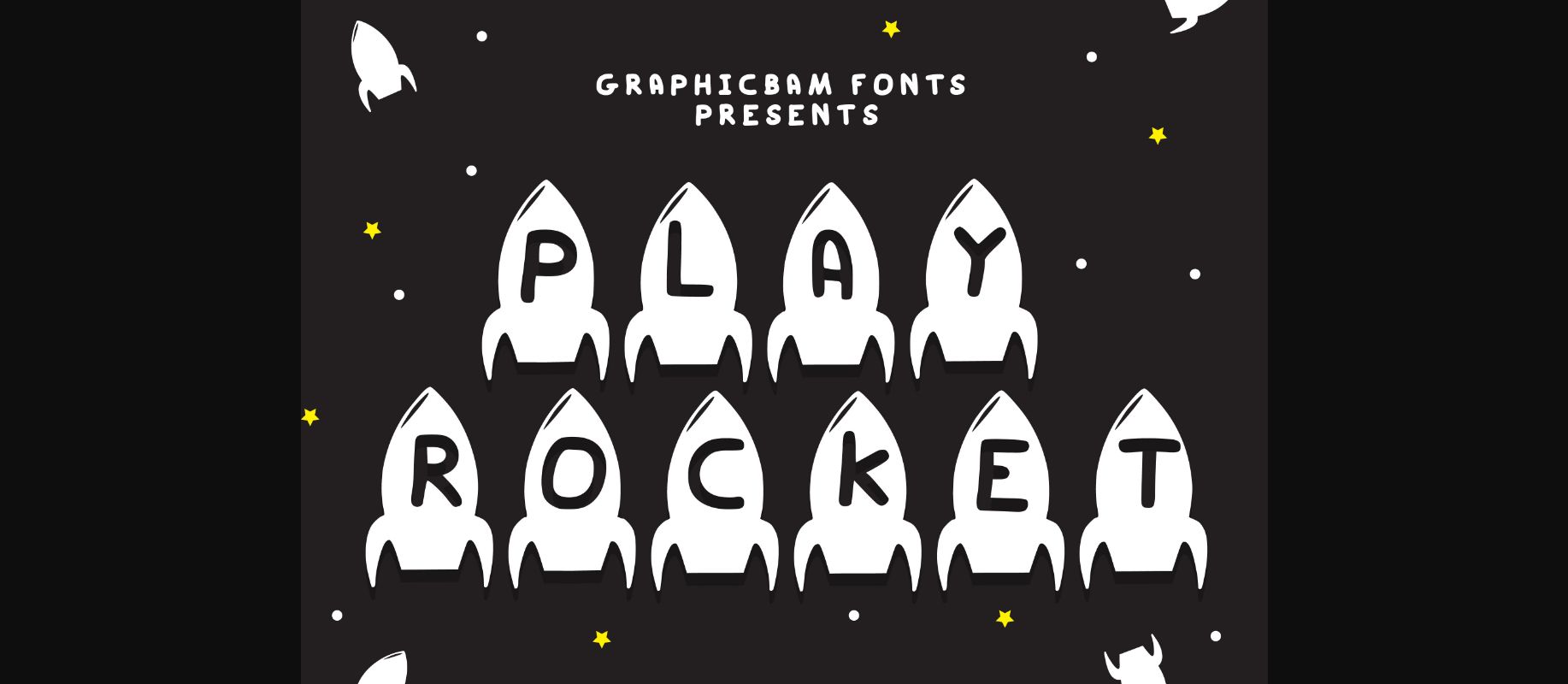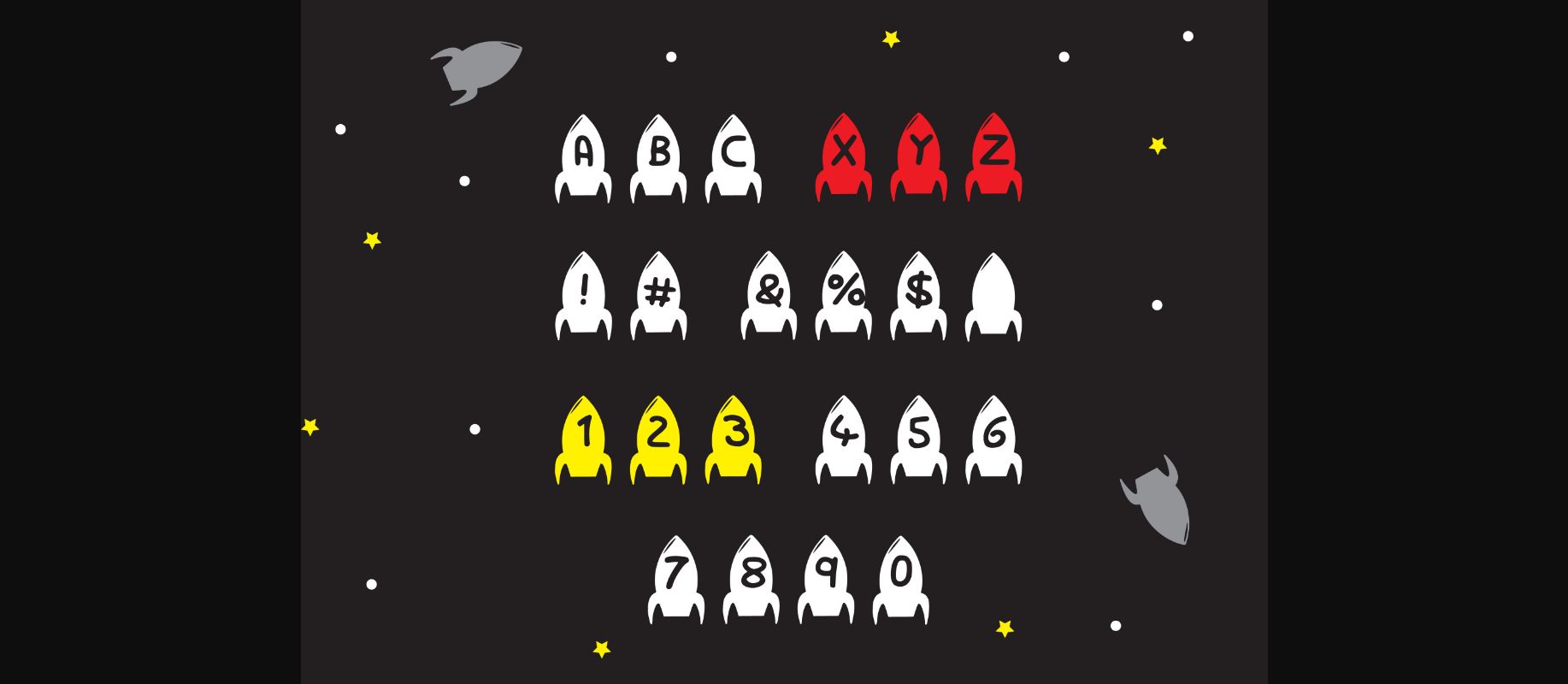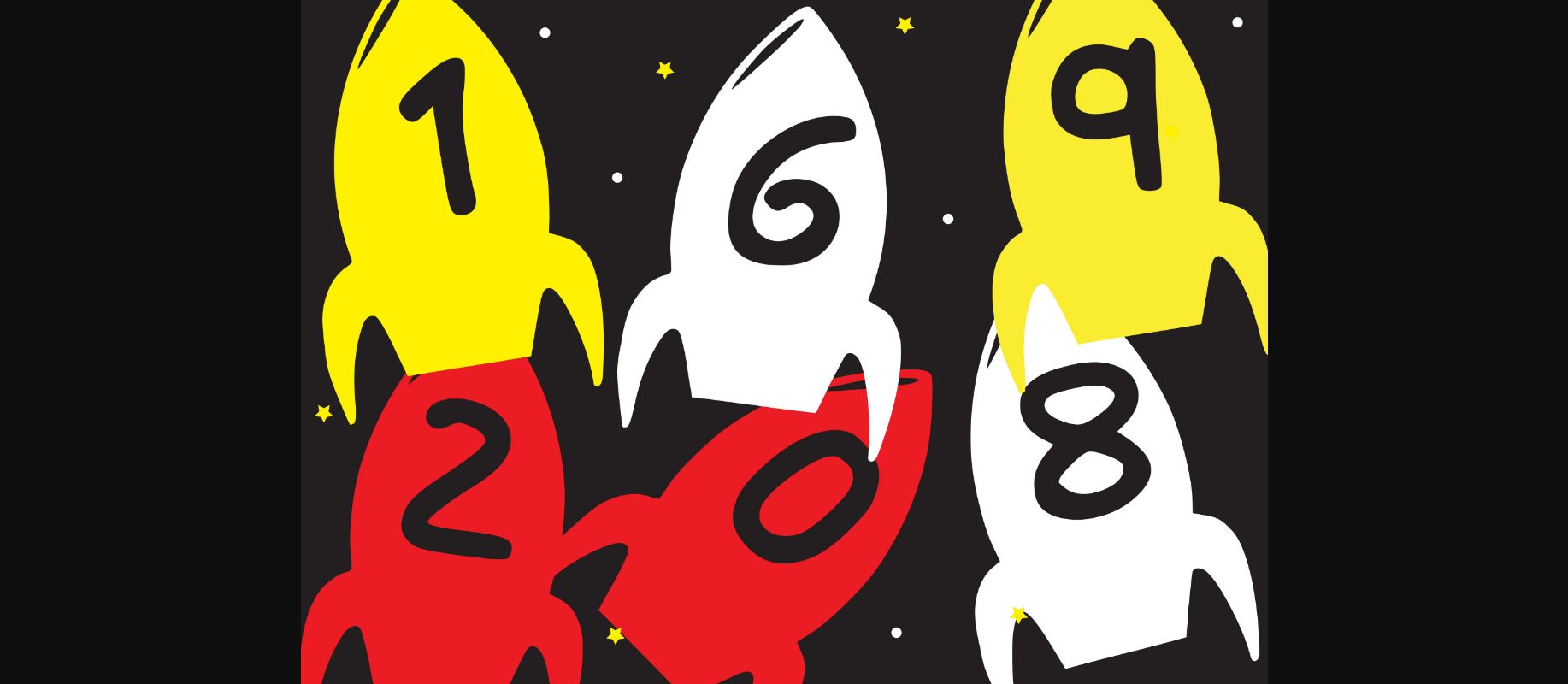
About Play Rocket Font
Play Rocket is a playful decorative font with a cute rocket theme. Add this font to your creative ideas and notice how it will make them stand out!